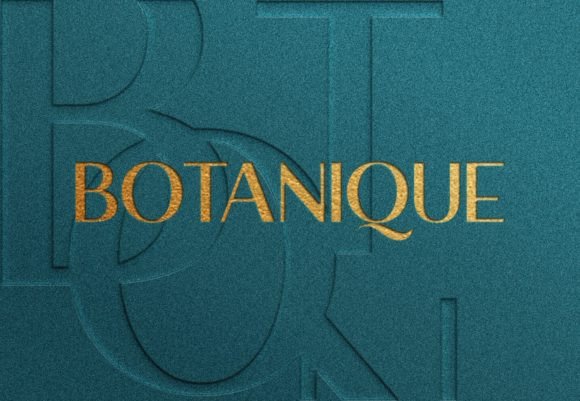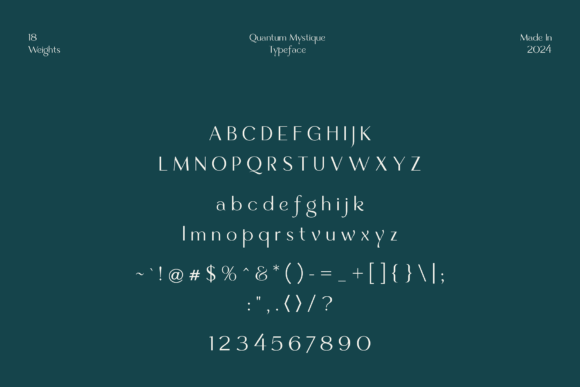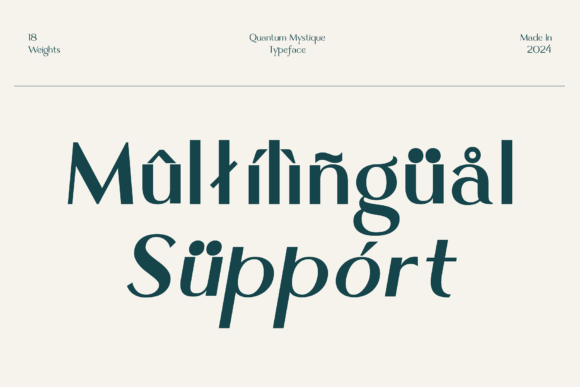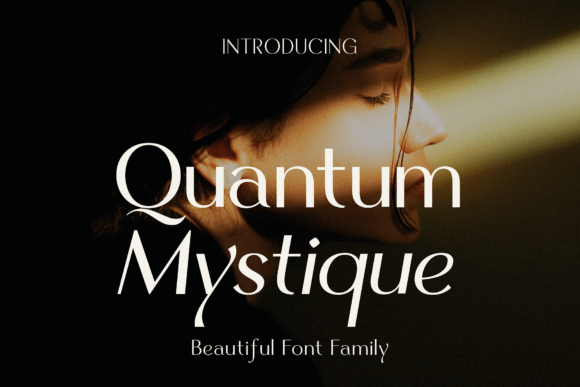
Introduction to Quantum Mystique Font
Introducing Quantum Mystique, the epitome of elegance in the world of typography.
This sophisticated sans-serif typeface is designed to captivate and inspire, seamlessly blending modern aesthetics with timeless grace Quantum Mystique isn’t just a typeface; it’s a design statement.
Key Features of Quantum Mystique Font
Why Choose Quantum Mystique Font?
Quantum Mystique Font offers exceptional quality and versatility, making it a valuable addition to your design toolkit. Whether you’re creating for personal projects or commercial use, Quantum Mystique Font delivers professional results.